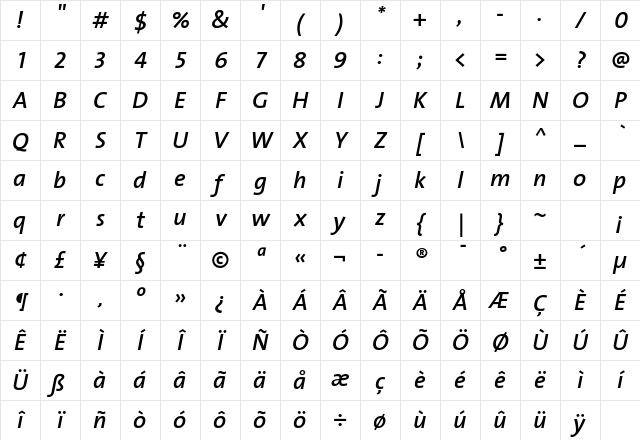
TravelportSans Bold Italic
Designer: Alex Kaczun / Type Innovations
Complete TravelportSans Bold Italic glyph index. Displaying only characters natively supported by TravelportSans Bold Italic font.
Design Context for TravelportSans
TravelportSans is a composed and adaptable typeface that performs quietly and consistently across a wide range of design contexts. The slanted form adds forward momentum and visual energy. Its bold stroke weight gives it real presence on the page.
Pro Tip: Use TravelportSans for emphasis, pull quotes, and subheadings where its slanted energy can add rhythm to the layout.